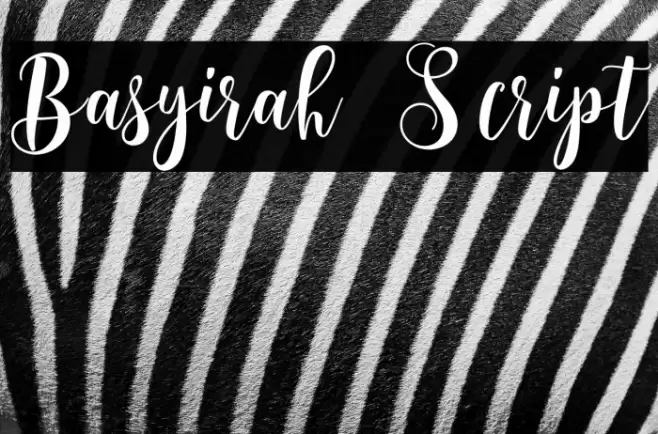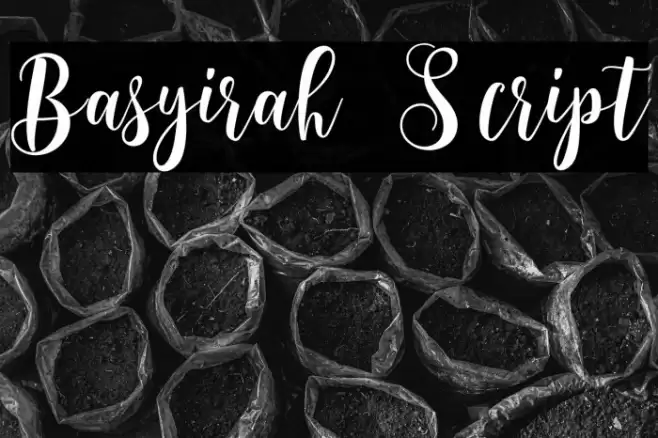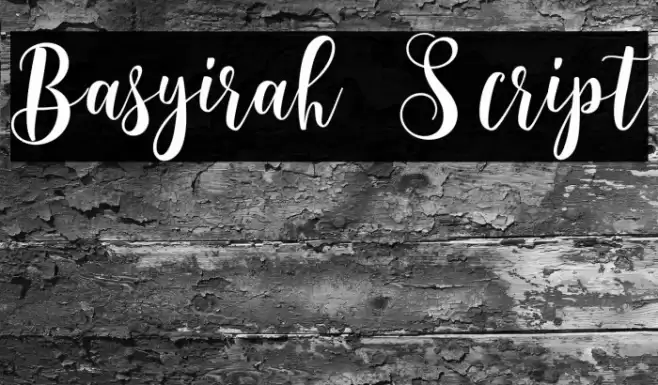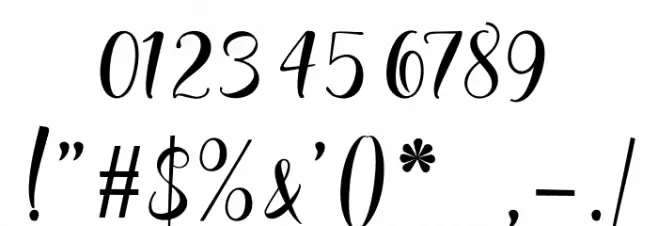
Basyirah Script Font
Basyirah Script Description
This elegant script font features a flowing, cursive style with a modern twist. The characters are gracefully connected, creating a seamless and fluid appearance. The uppercase letters are bold and prominent, while the lowercase letters maintain a delicate balance with their intricate loops and swirls. The numbers and special characters are designed to complement the overall aesthetic, ensuring consistency throughout. This font exudes a sense of sophistication and charm, making it ideal for projects that require a touch of elegance.
A modern, elegant script font with flowing, connected characters from Regular fonts.
- Proposed Projects: Ideal for wedding invitations, branding, greeting cards, and elegant packaging designs.
- Use Case: Logos, Invitations, Decorative text